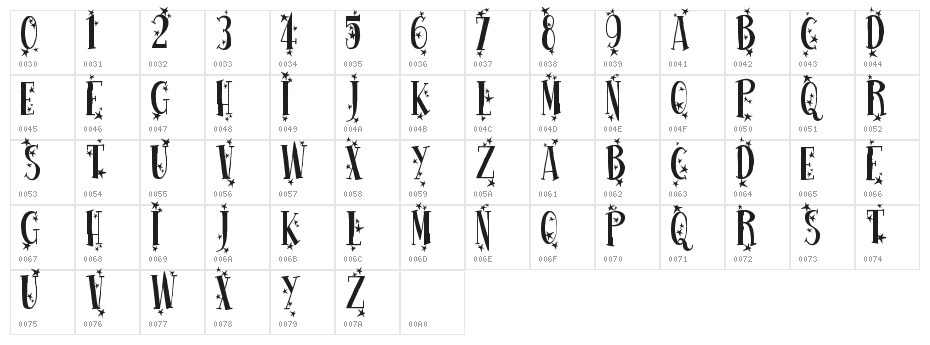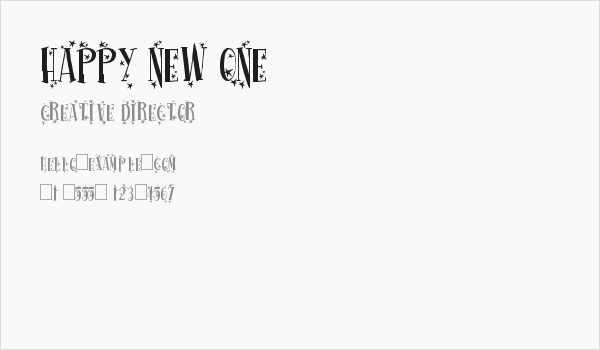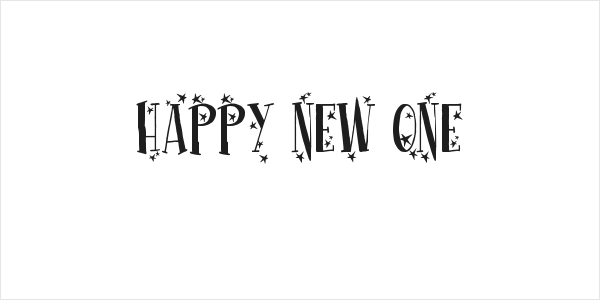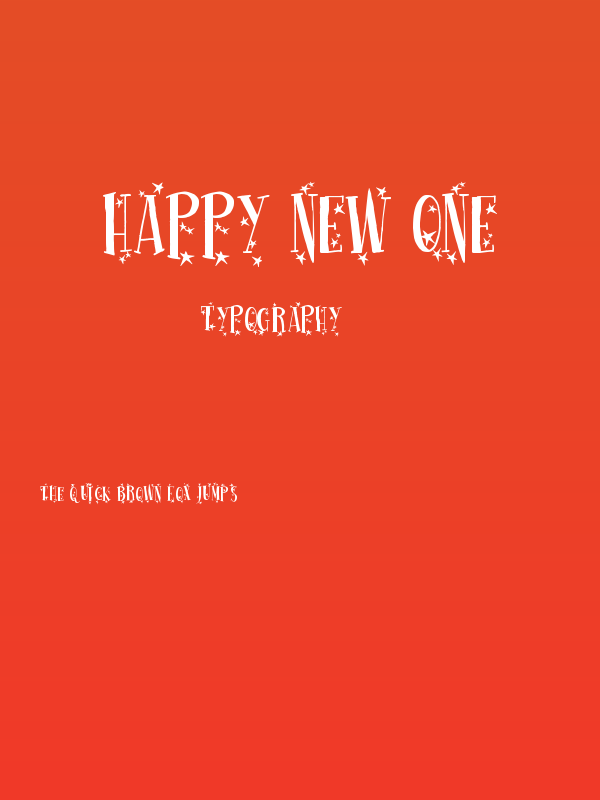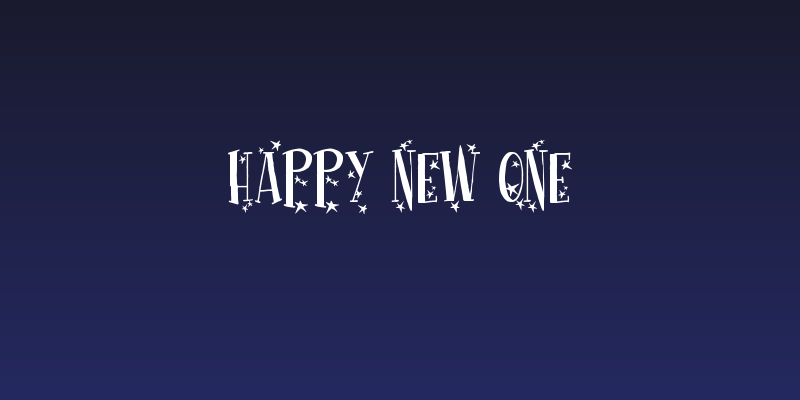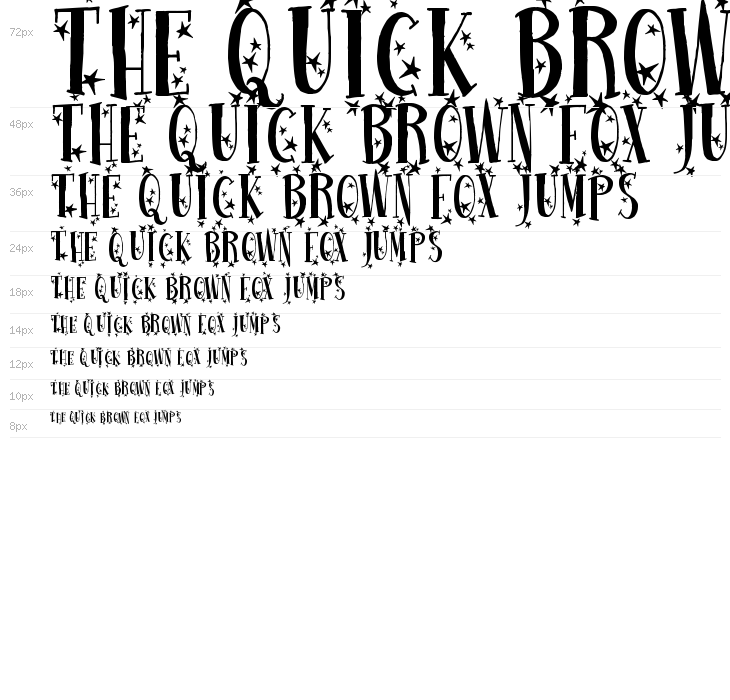
Happy New One Font
Happy New One Description
This font features a whimsical and decorative style, characterized by tall, narrow letters adorned with star motifs. The uppercase and lowercase letters maintain a consistent height, creating a uniform appearance. The numbers follow the same decorative theme, integrating seamlessly with the alphabet. The overall design is playful and eye-catching, making it suitable for creative and festive projects. The star embellishments add a unique touch, enhancing the font's visual appeal and making it stand out in any design context.
HAPPY-NEW-ONE UPPERCASE
HAPPY-NEW-ONE LOWERCASE
HAPPY-NEW-ONE OTHER CHARS
| Proposed Projects | Ideal for party invitations, festive banners, children's book covers, and creative posters. |